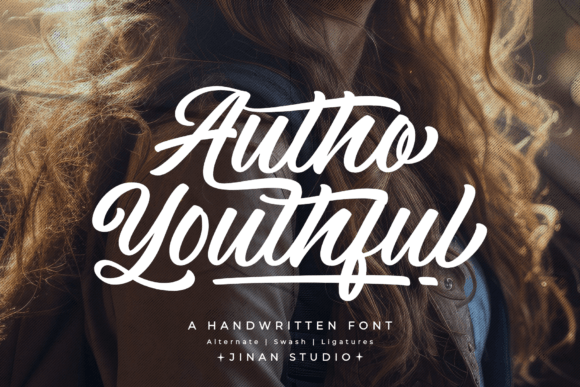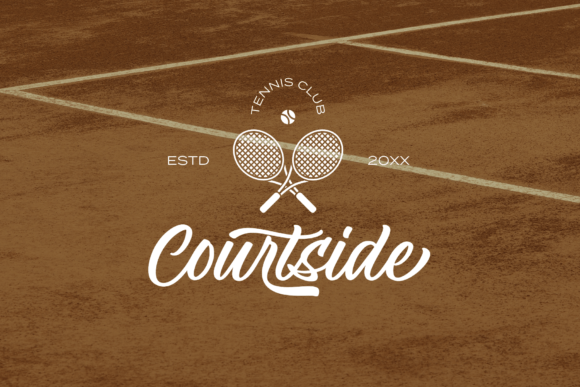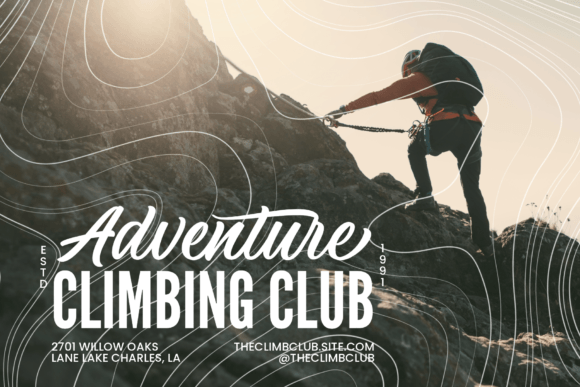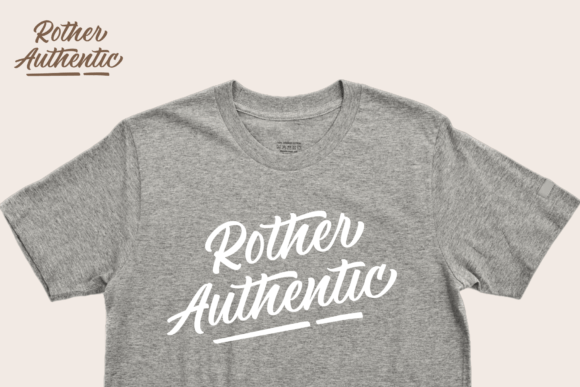
Autho Youthful Font
About the Autho Youthful Font
The Autho Youthful Font offers a perfect balance of form and function for your design needs. Discover the masterstroke of design in Autho Youthful, the handwritten font with timeless charm. The elegance of this font drips from each alternate, swash, and ligature, infusing your designs with a personal touch. It beautifully elevates logos, invitation cards, and social media graphics, adorning them with a dash of sophistication. Bursting with character and style, Autho Youthful is a perfect choice for your next design project.
Autho Youthful’s elegant, yet slightly informal handwritten style shines in headlines, short-form text, and branding applications where a touch of personality is desired. It works exceptionally well for logos, invitations, social media posts, and short marketing materials. However, its delicate strokes and varying character widths make it less suitable for body text or UI elements requiring high readability in long passages.
Pairing Autho Youthful with a clean sans-serif like Open Sans for body copy creates a balanced contrast, allowing the script font to stand out while maintaining legibility. For a more playful feel, consider pairing it with a geometric sans-serif such as Futura. Alternatively, a classic serif like Garamond can add a touch of timeless sophistication, enhancing the overall luxurious impression.
The font’s core personality is sophisticated yet approachable, conveying a sense of both elegance and youthful energy. It is ideally suited for brands targeting a younger demographic who appreciate handcrafted aesthetics and a personal touch, but still value refinement and quality.
Autho Youthful Font Usage Examples
Autho Youthful Font Example